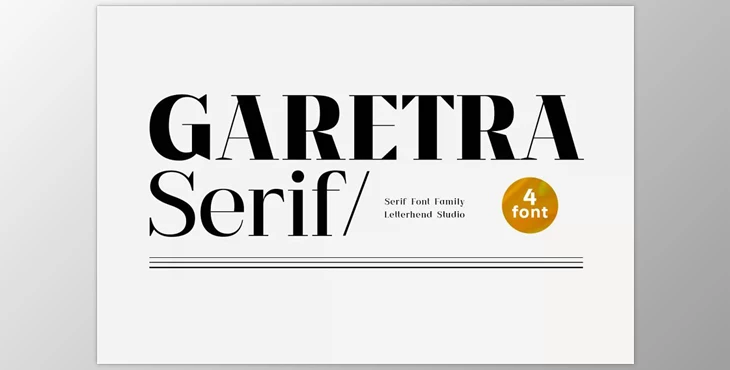
Garetra Serif Font Family Creativemarket 6926155: Garetra Serif is a stylish serif with a range of weights that you can pick. It comes in four weights that you can experiment with to suit your needs to create a striking headline or tags, you choose it. It is perfect for use on other formal designs like labels, invitations, labels or books, magazines, wedding or greeting cards packaging, fashion makeup, stationery, books, labels, or for any advertisement.
Some great features of Garetra Serif Font Family:
- uppercase and lowercase
- Numbers and punctuation
- multilingual
- Alternates and the ligatures